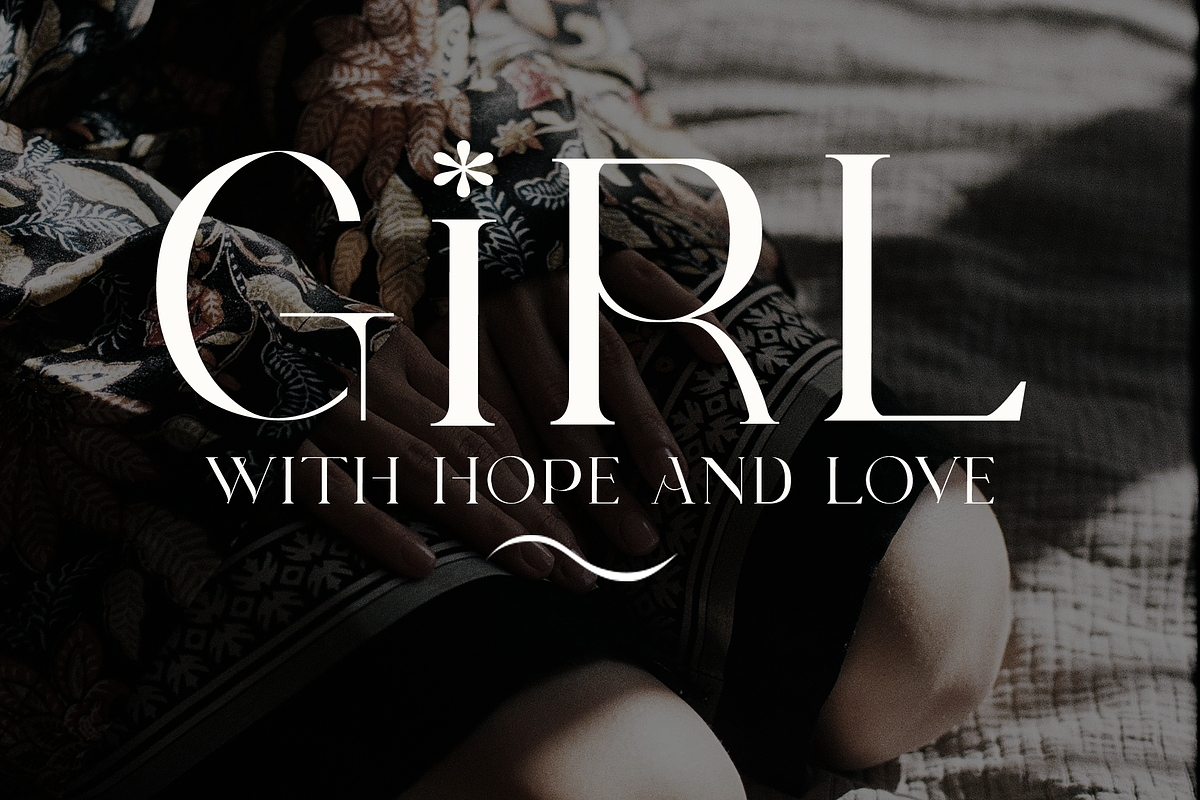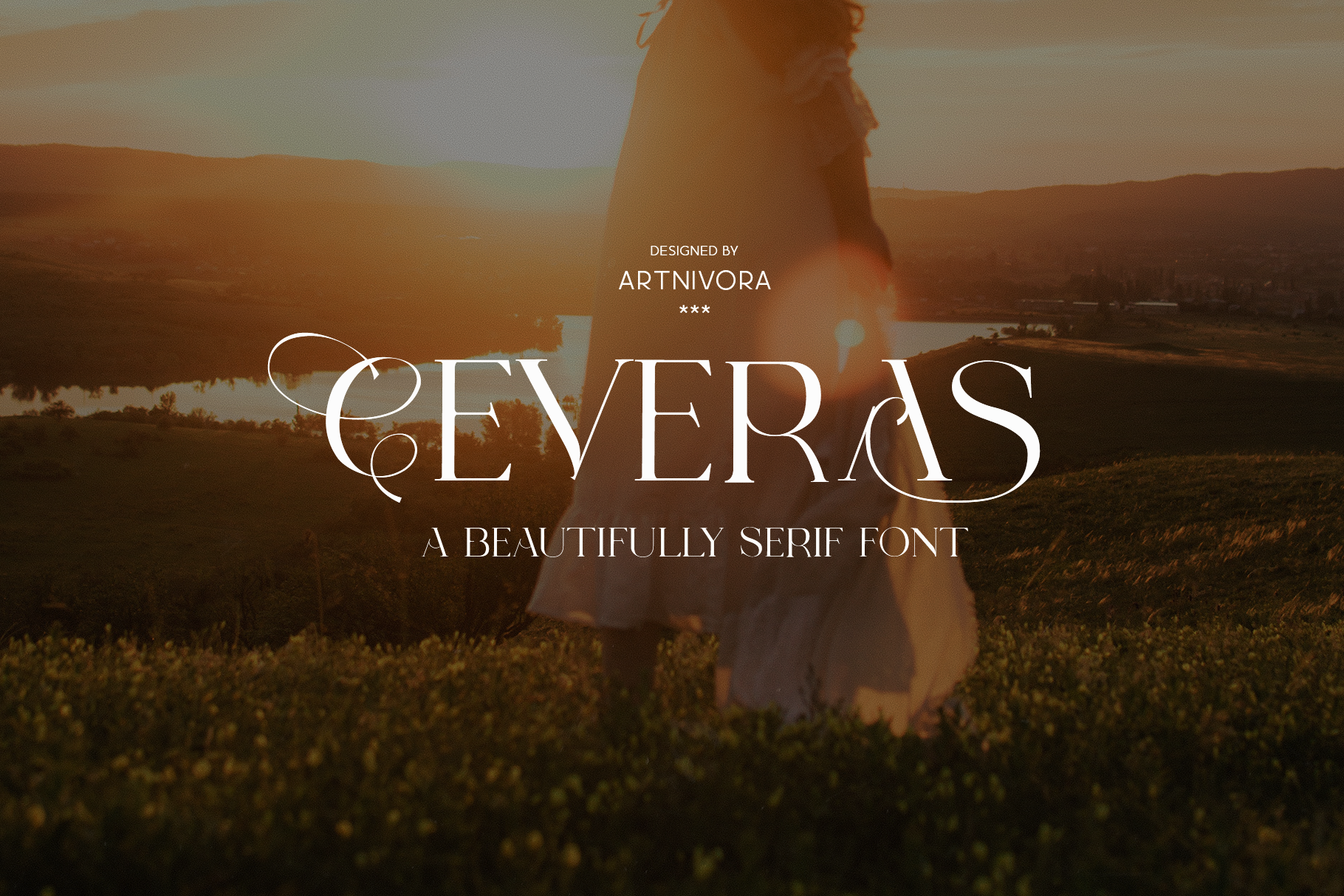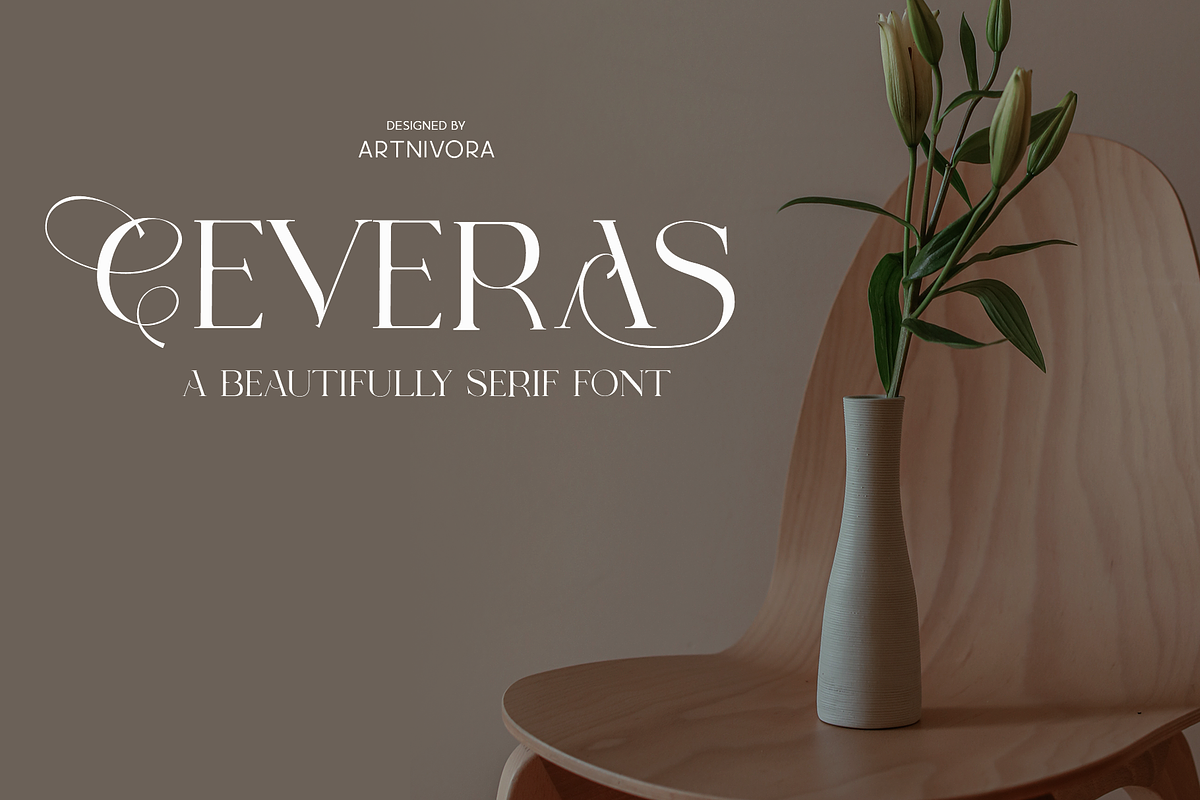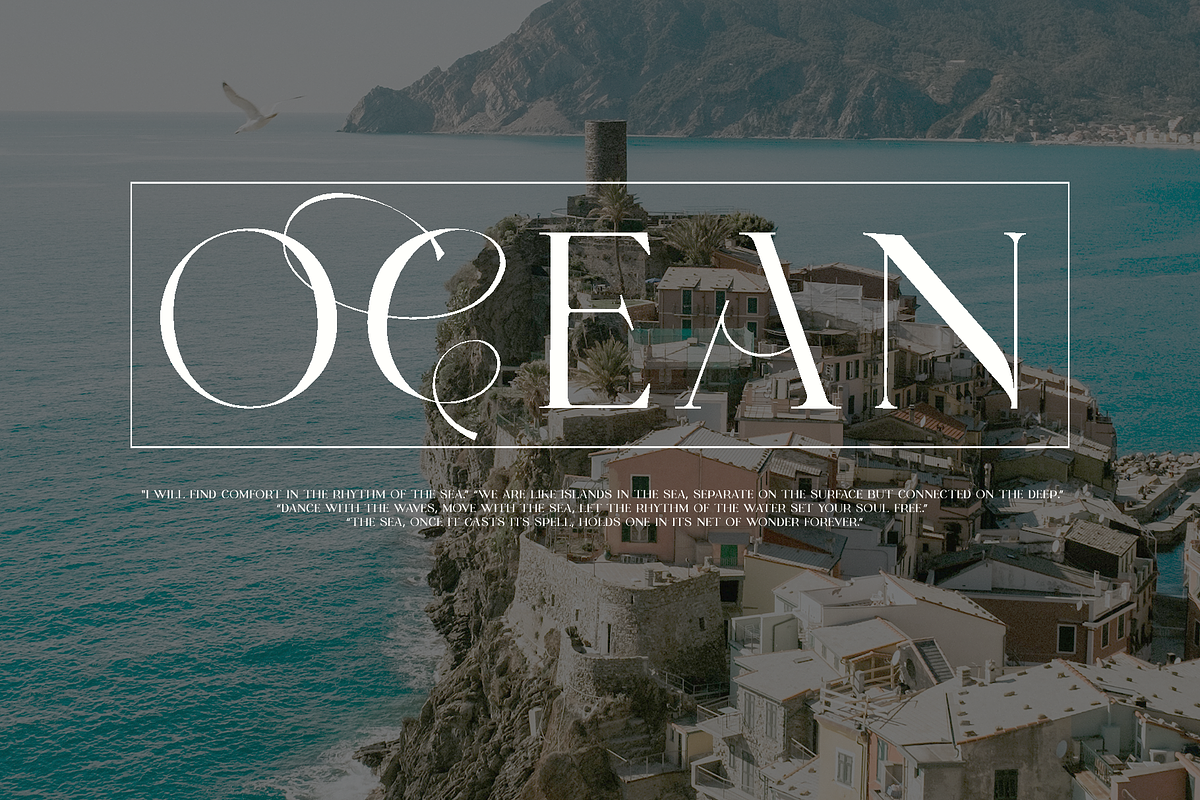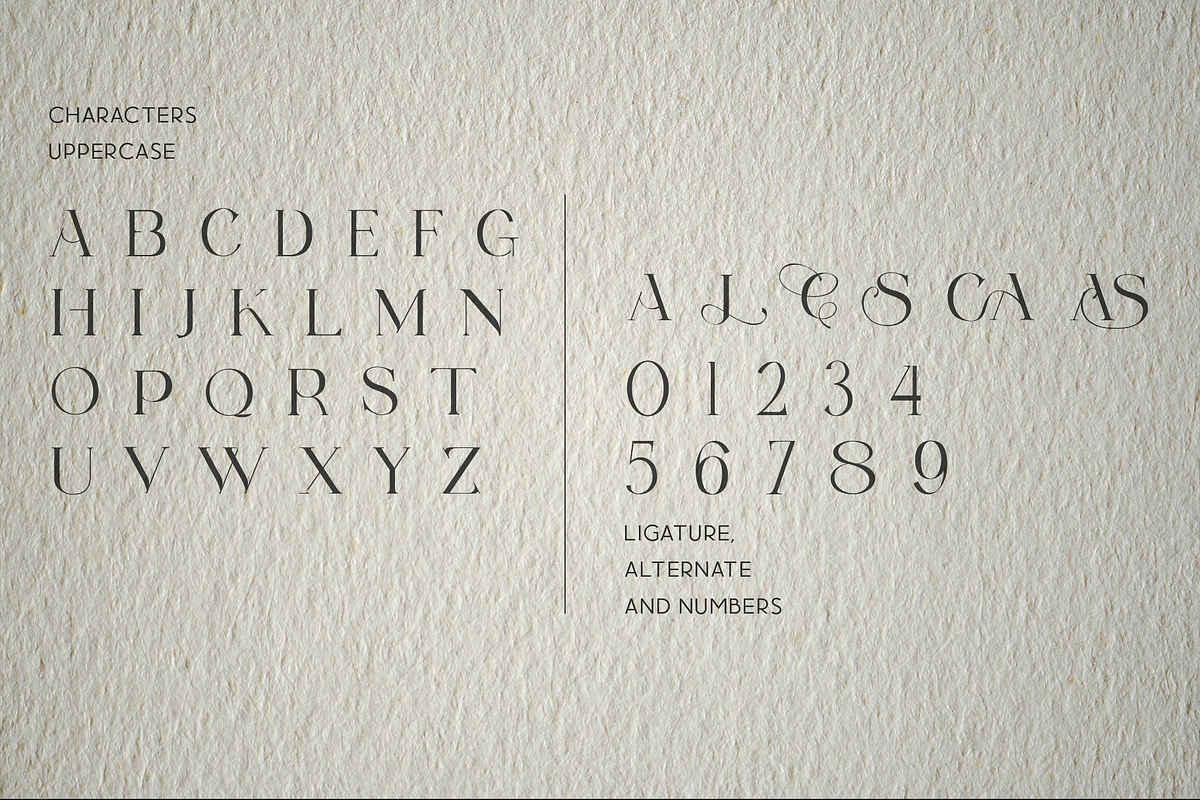
Ceveras - Beauty Serif Font
Introducing Ceveras, an elegant, luxury, and beauty serif font. Its unique and lovely feel. So perfect for you who needs a typeface for logo designs, magazine, social media, brochure, and many more.